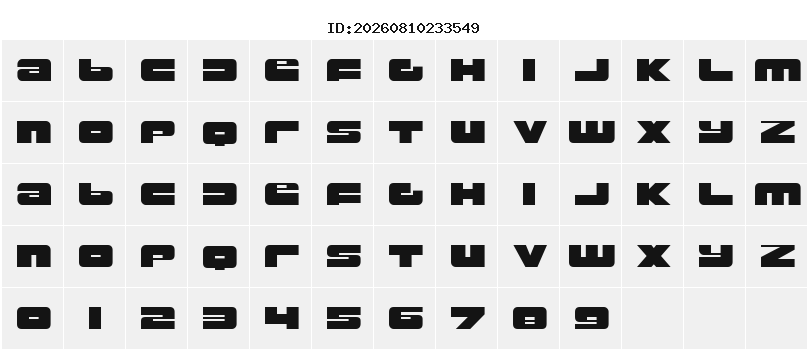
• Font Name: Rustproof Body
• Designer: Ray Larabie
• Manufacturer: Larabie Fonts
About Rustproof Body.ttf
Rustproof Body.ttf is a modern, elegant sans-serif font designed for ultimate readability and visual harmony. Perfect for branding, headlines, web design, and print materials.